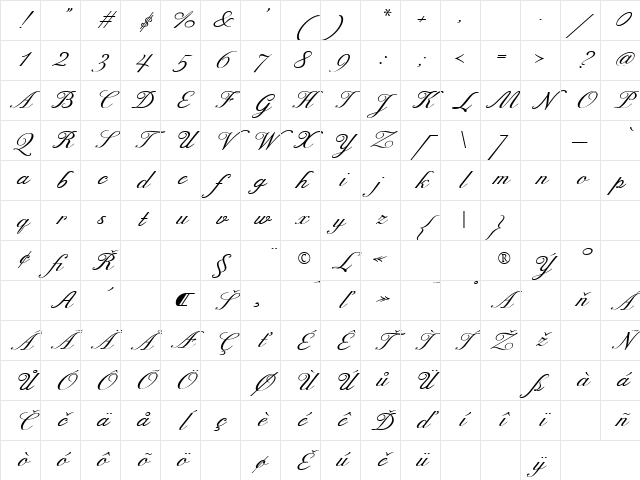
ExcelsiorScript TextExtended
Style: TextExtended
Design Context for ExcelsiorScript
ExcelsiorScript flows with the natural rhythm of handwritten lettering, making it ideal for designs that call for warmth and personal expression.
Font Pairing: Combine ExcelsiorScript with a simple geometric sans for maximum contrast - the tension between flowing curves and clean structure is a classic typographic pairing.
Pro Tip: Use ExcelsiorScript for short runs of text - names, titles, or taglines. Extended body copy in script faces tires the eye quickly.